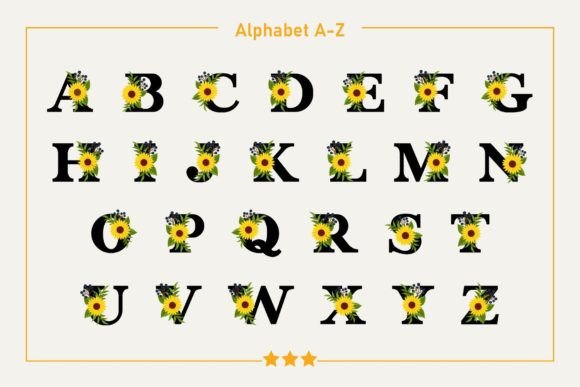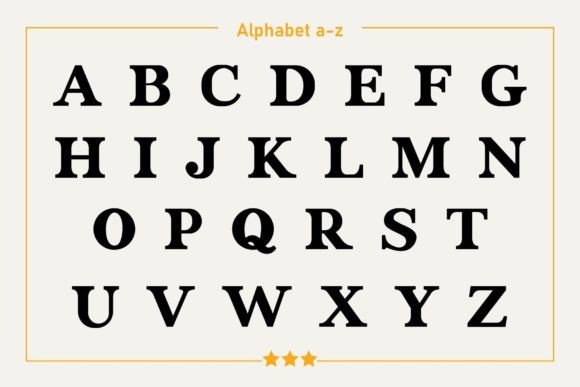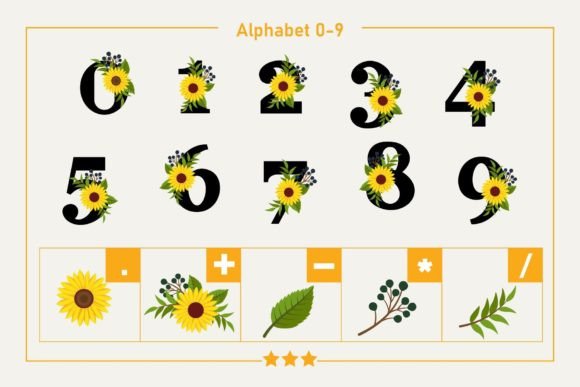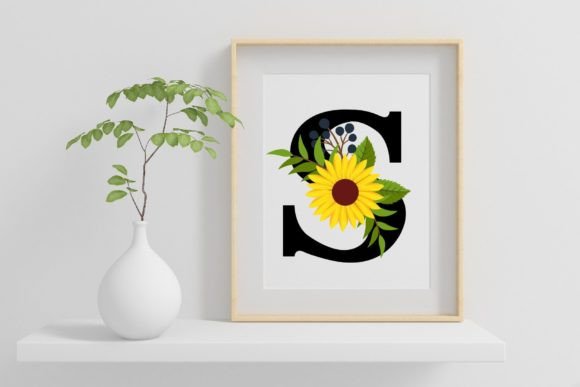
About Sunflower Monogram Font
Introducing Sunflower Monogram, a meticulously designed color font that exudes freshness and vitality. This font captures the essence of sunflowers, evoking a sense of joy and beauty. With its authentic feel, Sunflower Monogram is perfect for creating stunning invitations, captivating stationary art, eye-catching social media posts, and adorable greeting cards. By adding this font to your library, you can unlock a world of possibilities and create spectacular designs that will leave a lasting impression.
Sunflower Monogram is a true work of art, meticulously crafted to bring out the vibrancy and charm of sunflowers. Each letter is intricately designed with vibrant colors and delicate details, capturing the essence of these beloved flowers. The font radiates a sense of freshness, making it a perfect choice for projects that require a touch of nature’s beauty.
With Sunflower Monogram, you have the power to create gorgeous invitations that set the tone for memorable events. Whether it’s a wedding, birthday party, or any other special occasion, this font will add a touch of elegance and charm to your designs. The vibrant colors and intricate details of the sunflower-inspired letters will make your invitations stand out and leave a lasting impression on your guests.
Beautiful stationary art becomes even more captivating when adorned with Sunflower Monogram. From personalized letterheads to stunning notecards, this font will elevate your stationary designs to a whole new level. The fresh and vibrant feel of the font will bring life to your creations and make them truly memorable.
Sunflower Monogram is also perfect for creating eye-catching social media posts that grab attention and engage your audience. Whether you’re promoting a product, sharing a message, or simply adding a touch of beauty to your feed, this font will make your posts stand out. The vibrant colors and intricate details will make your content visually appealing and encourage your followers to stop and admire your designs.
Greeting cards become even more adorable when adorned with Sunflower Monogram. Whether it’s a birthday card, thank-you note, or any other special occasion, this font will add a touch of sweetness and charm. The authentic feel of the font will make your cards truly special and leave a lasting impression on the recipients.